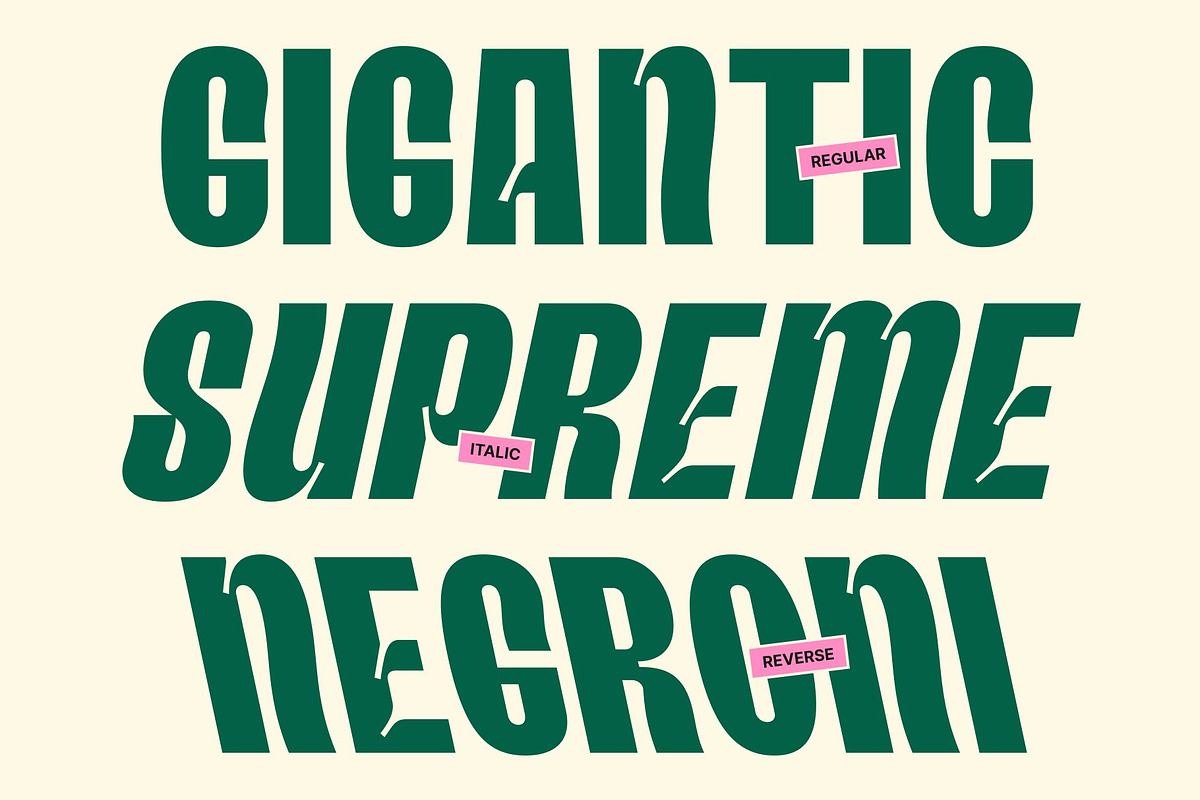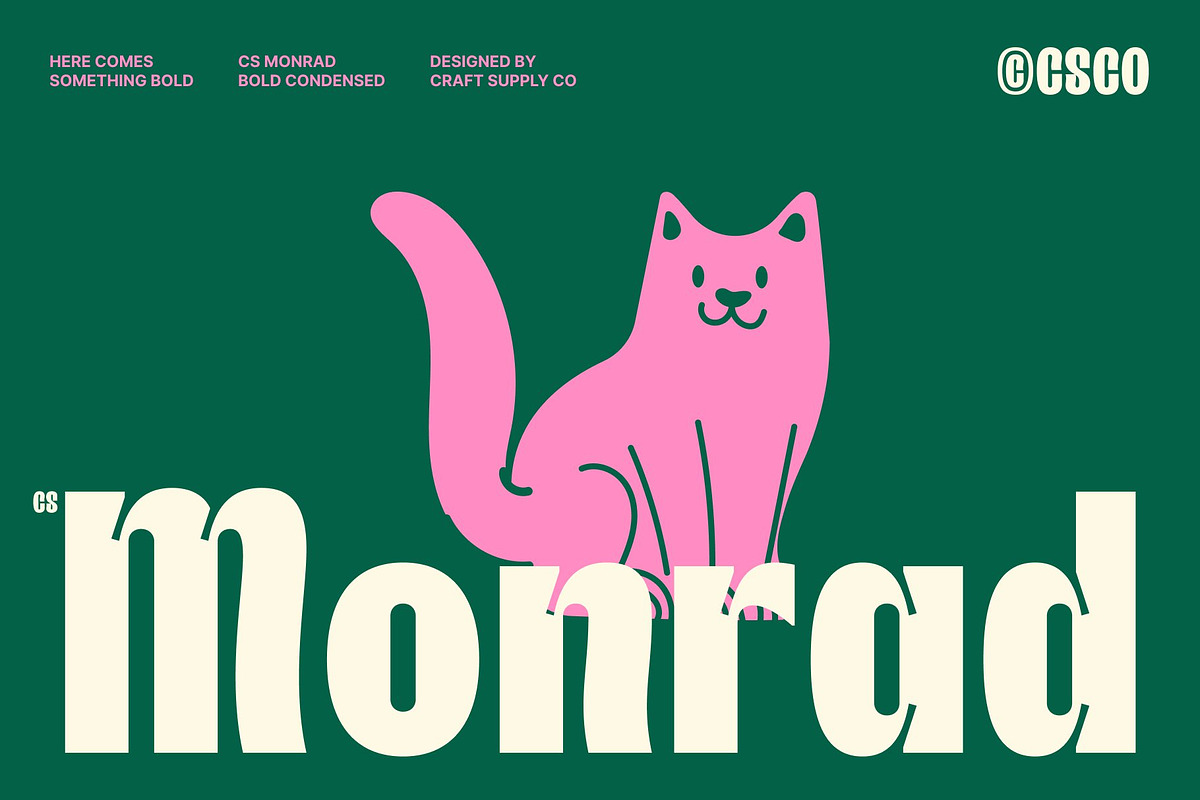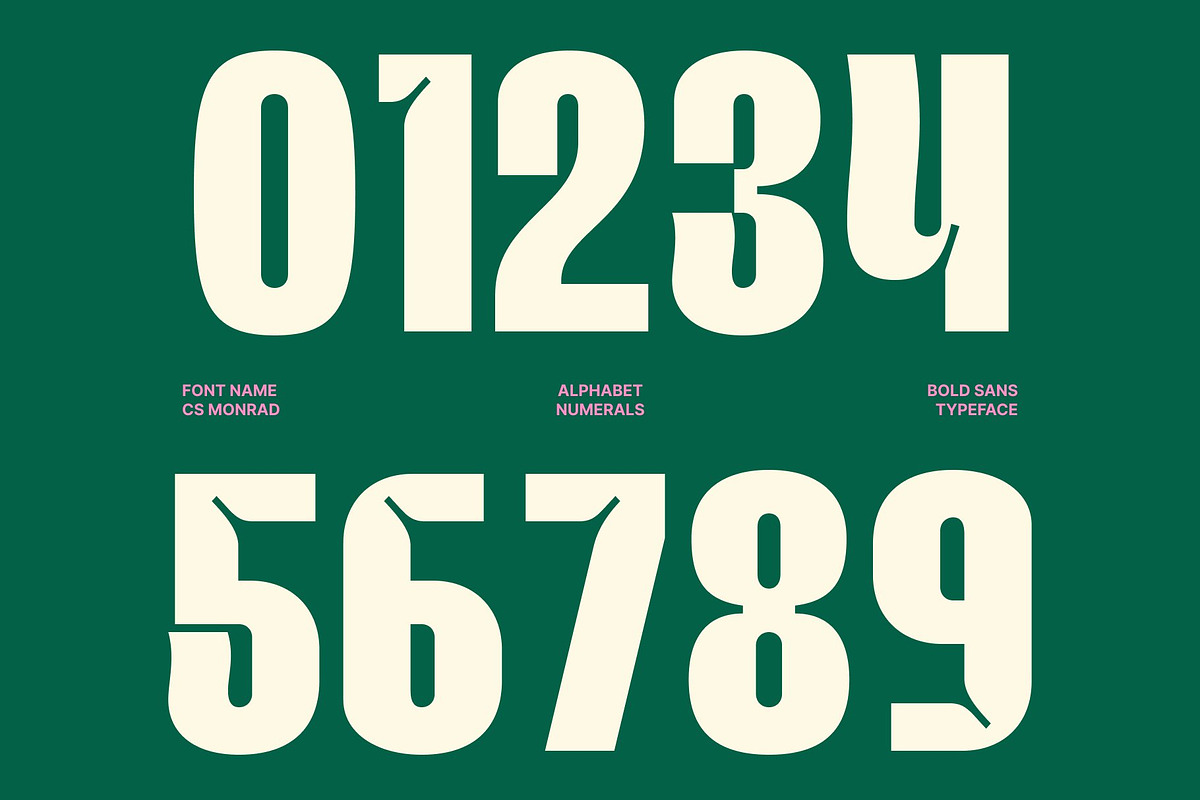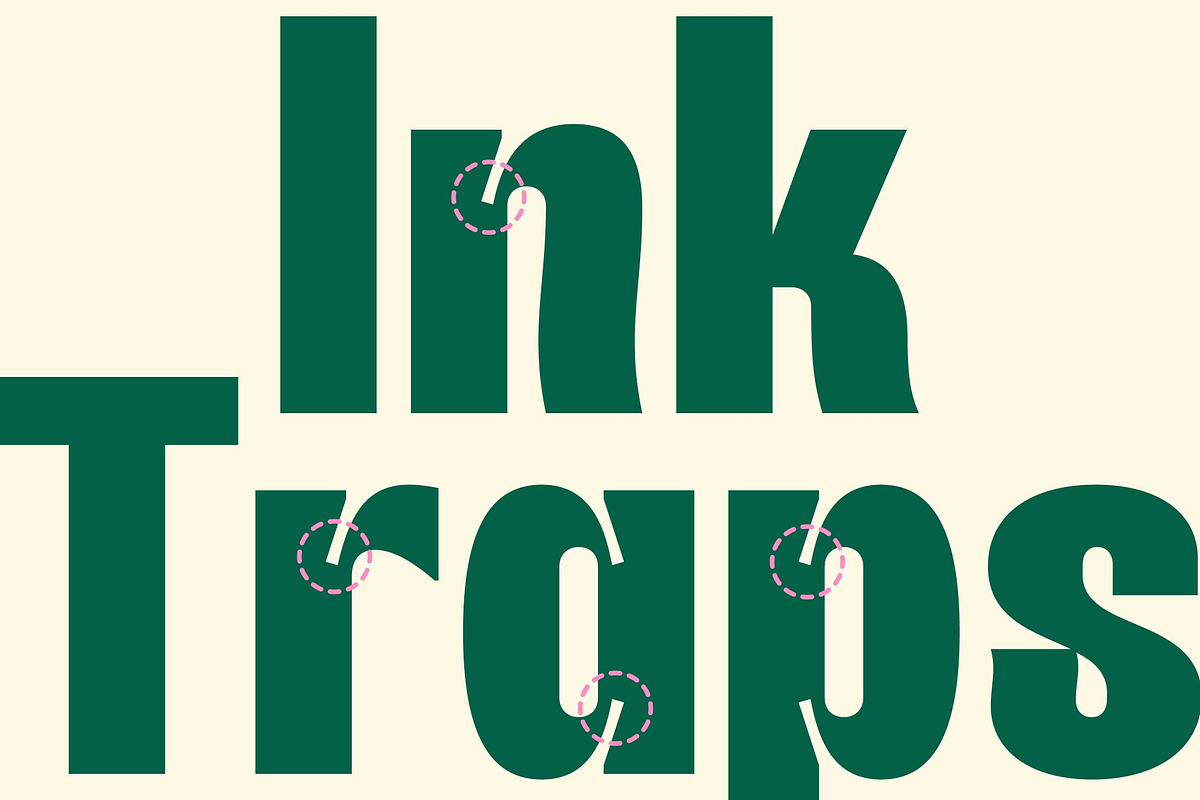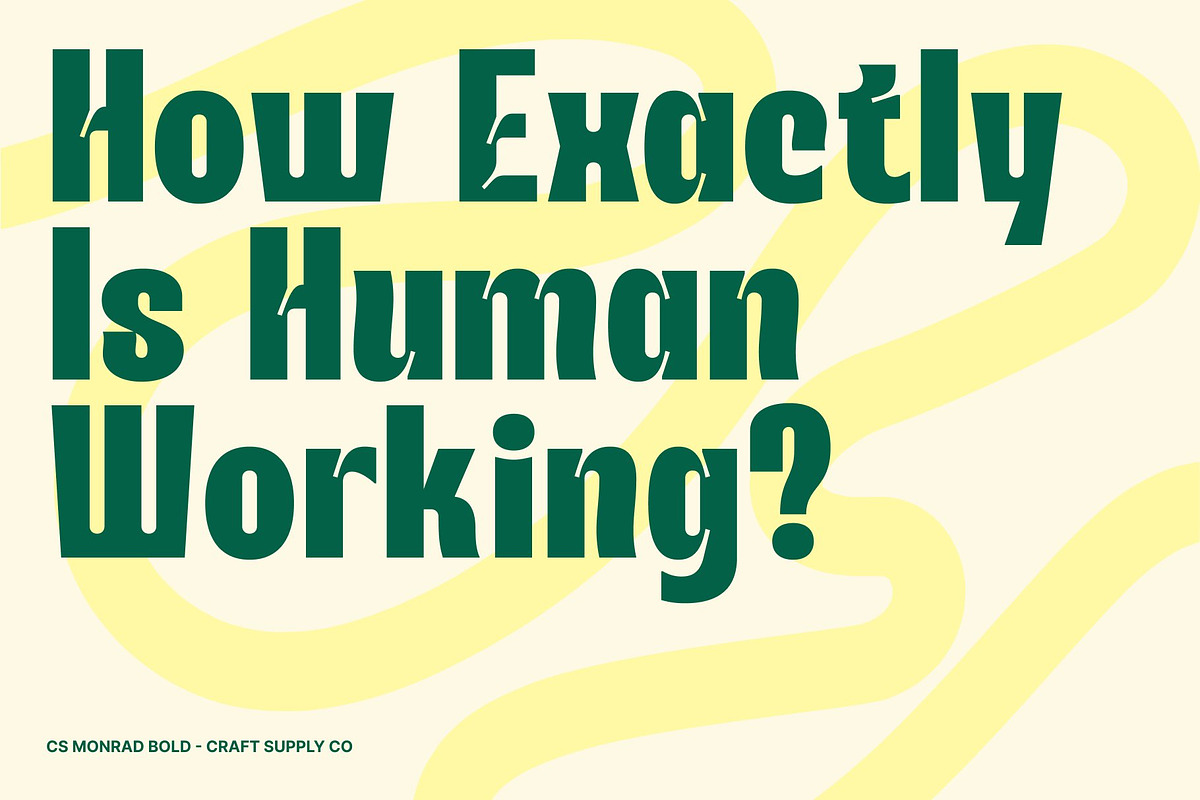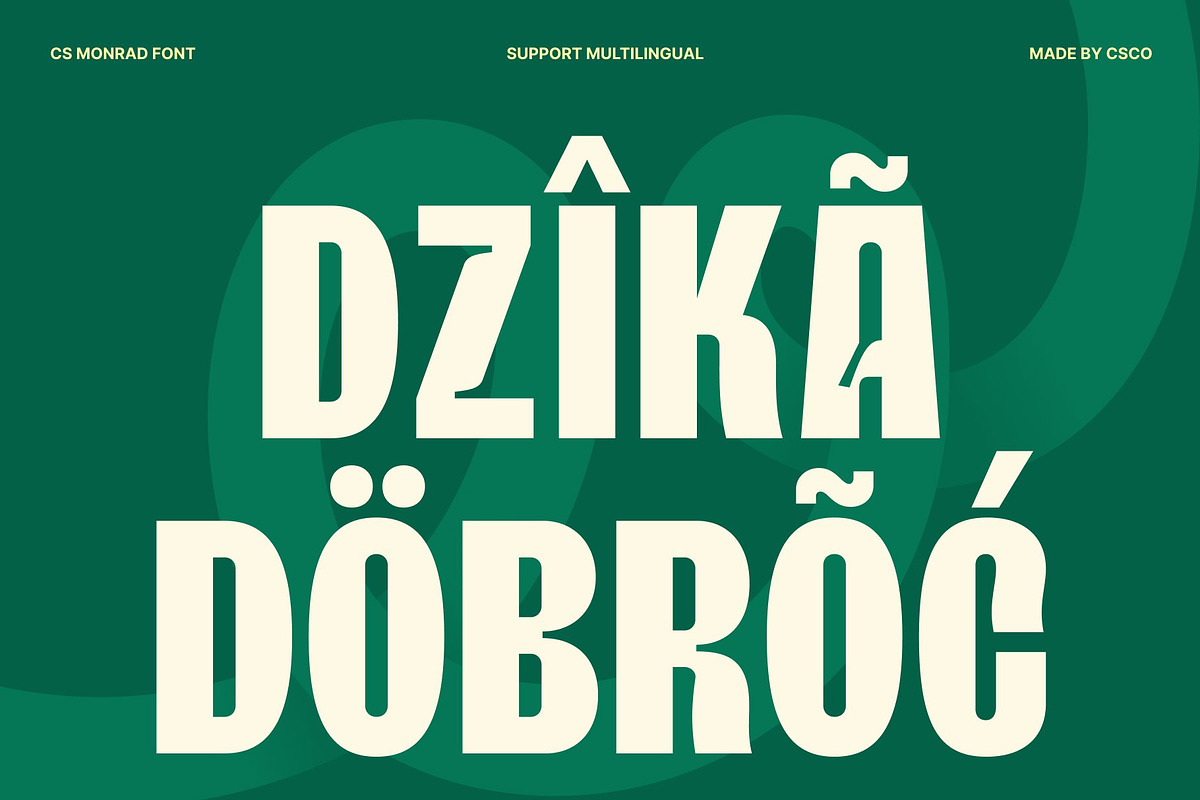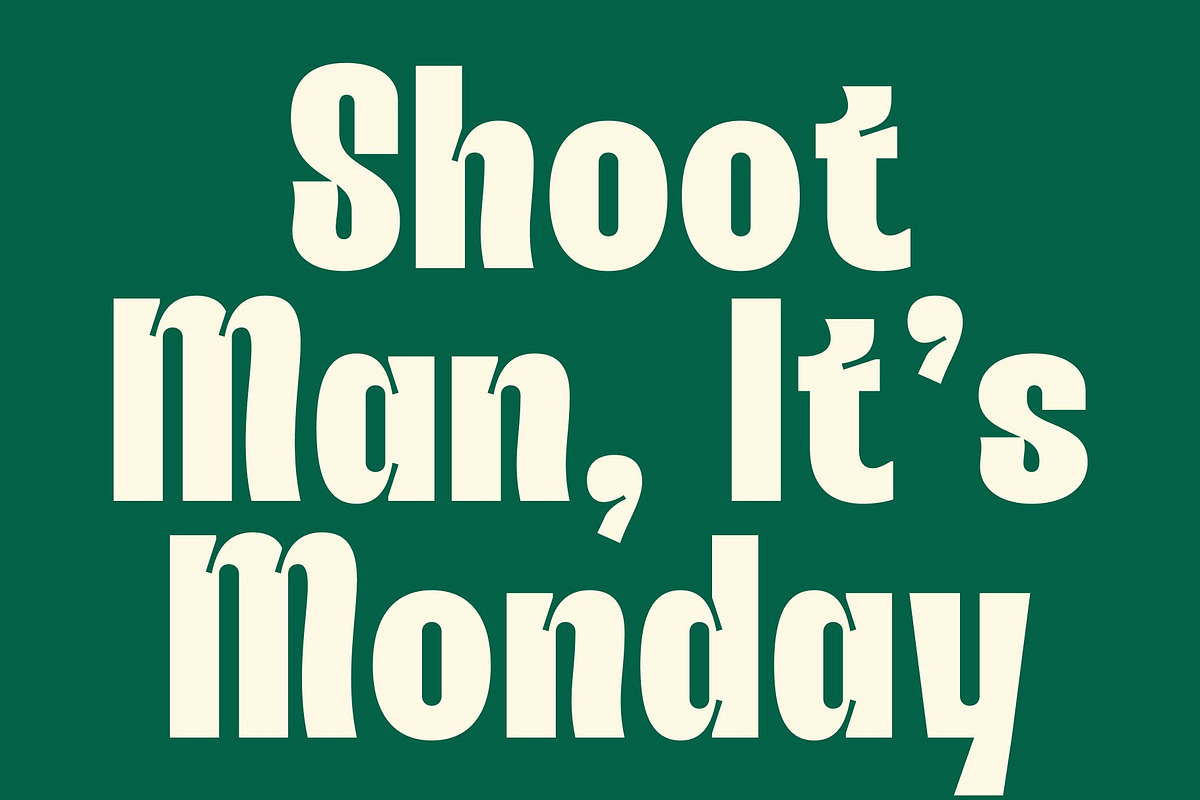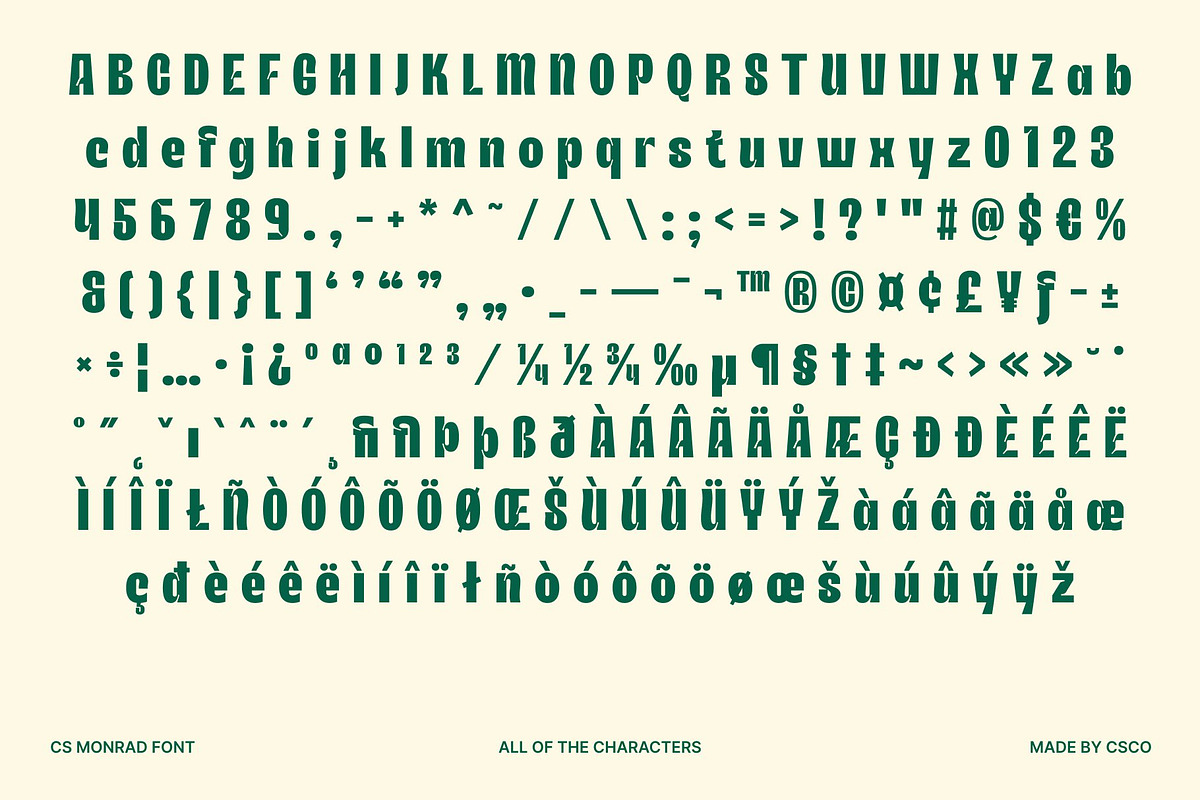
CS Monrad – Inktrap Font
CS Monrad – Bold Sans Serif Font: Where Playful Inktraps Meet Modern Impact
Strong Letterforms with Playful Character This is a bold sans serif font designed to combine strength, clarity, and personality. Featuring clean, confident letterforms enhanced by distinctive inktrap details, it delivers a modern typographic style that feels both functional and expressive. The bold construction creates an immediate visual impact, while the playful design elements add charm and individuality.
Playful Inktrap Style with Contemporary Appeal The unique inktrap details bring a fresh and dynamic character to the font, transforming technical typographic features into eye-catching design elements. These subtle cuts and refinements create visual interest, adding depth and personality while maintaining excellent readability. The result is a typeface that feels modern, energetic, and memorable.
Bold Presence with Creative Versatility This font offers a versatile visual identity suitable for a wide range of creative applications. Its balanced combination of boldness and friendliness allows it to stand out in large display settings while remaining approachable and engaging.
Perfect for Posters, Branding, and Display Typography Perfect for eye-catching displays, bold posters, branding systems, impactful titles, advertising campaigns, packaging, social media graphics, merchandise, and creative visual identities. Its distinctive forms make it ideal for logos, headlines, and promotional materials that seek to communicate confidence, creativity, and modern energy.